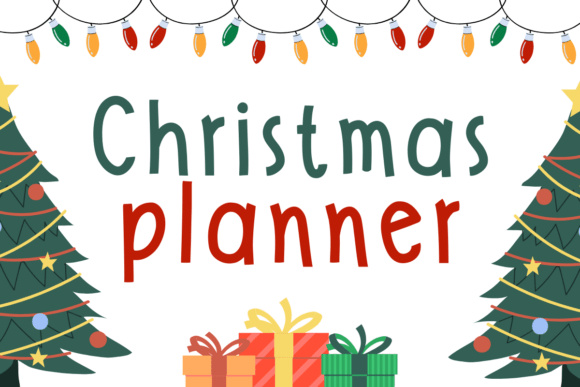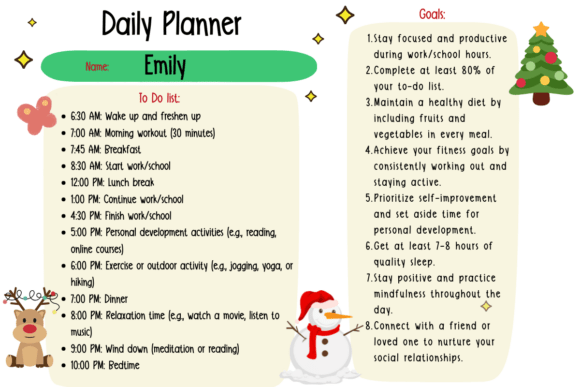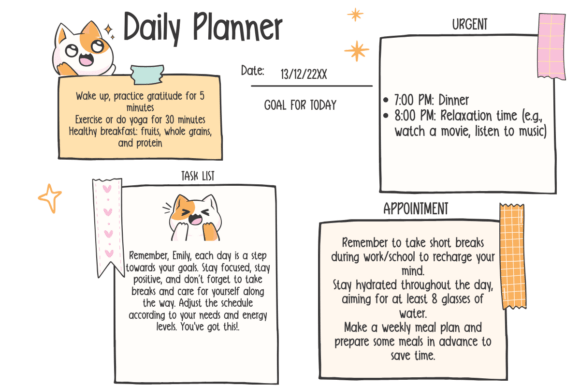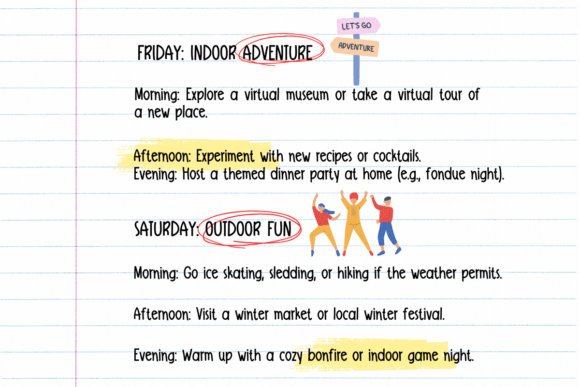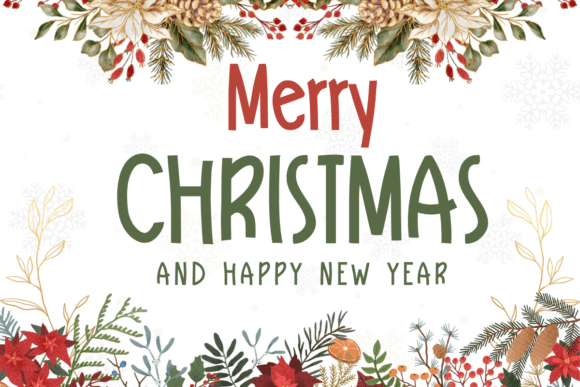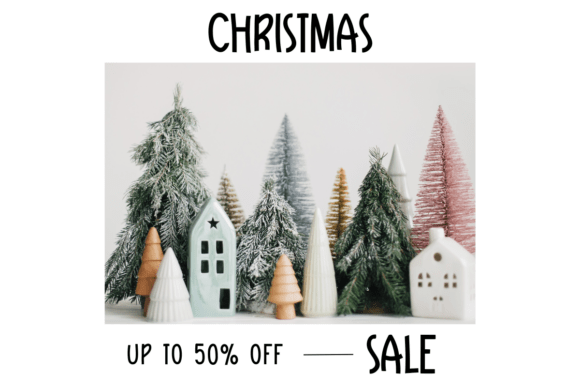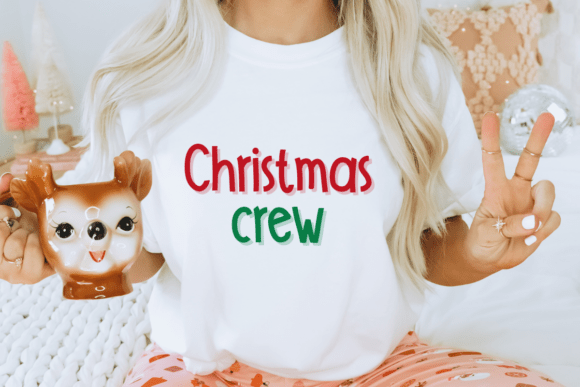
Get into the Holiday Spirit with the Christmas Planner Font
As the snowflakes start to fall and the twinkling lights adorn the house, many of us get excited to start planning our holiday celebrations. But before we dive into making a list and checking it twice, let’s not forget the most important part – the design. Whether you’re a professional graphic designer or a DIY enthusiast, the right font can make all the difference in capturing the magic of the season.
That’s where the Christmas Planner Font comes in – a festive and cheerful typeface designed to bring warmth, joy, and coziness to your holiday designs. With its playful letterforms and friendly hand-drawn style, this font is perfect for planners, greeting cards, gift tags, and more. It’s a valuable addition to any designer’s toolkit, offering a unique and approachable aesthetic that’s both fun and readable.
Christmas Planner Font Key Features
- Font Family: A unique, hand-drawn font designed specifically for holiday planners and organizers.
- Unique Characteristics: Features festive, cursive, and handwritten elements, making it perfect for adding a touch of holiday cheer to planners and organizers.
Designer Review: Christmas Planner Font
Overall, I’m quite impressed with the Christmas Planner Font. It’s a delightful and festive typeface that’s perfect for holiday planners, gift tags, or any other winter-themed design project. Here are the things that work well:
- ✨ The font has a playful, hand-drawn feel that’s sure to bring a smile to your face.
- ✨ The letterforms are well-crafted, with clear distinctions between uppercase and lowercase letters.
- ✨ The font includes a range of ornaments and decorations that can be used to add extra flair to your designs.
- ⚠️ The font is only available in a limited range of weights, which may limit its versatility in certain design situations.
- ⚠️ Some of the ornaments and decorations may be a bit too flashy or over-the-top for more subdued designs.
Overall, I think the Christmas Planner Font is a great choice for anyone looking to add a festive touch to their holiday designs. While it may have some limitations, its playful feel and well-crafted letterforms make it a joy to work with.
For the best results, use the Christmas Planner Font in conjunction with festive graphics and colors. Experiment with different font sizes, colors, and styles to create a unique look. You can also use the font in combination with other fonts to create a layered, dimensional effect.
The Christmas Planner Font is perfect for creating holiday-themed planners, calendars, and cards. It’s also great for use in social media posts, blog headers, and other digital content.